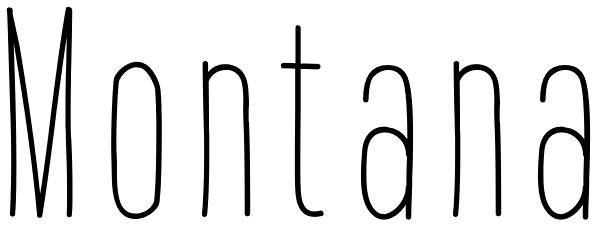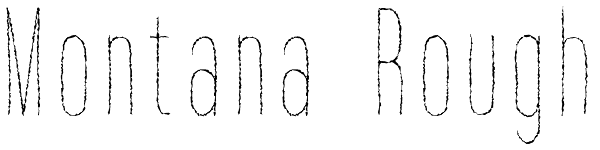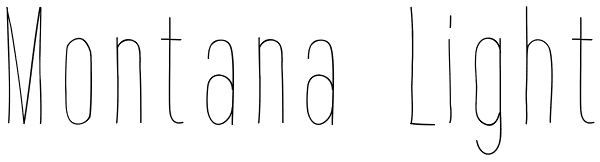
Montana
Montana is an elegantly playful handwritten font family with separate fonts for icons and illustrations included. This font is based on tight, condensed Grotesk typefaces, combining geometry and legibility with the originality of handwritten...